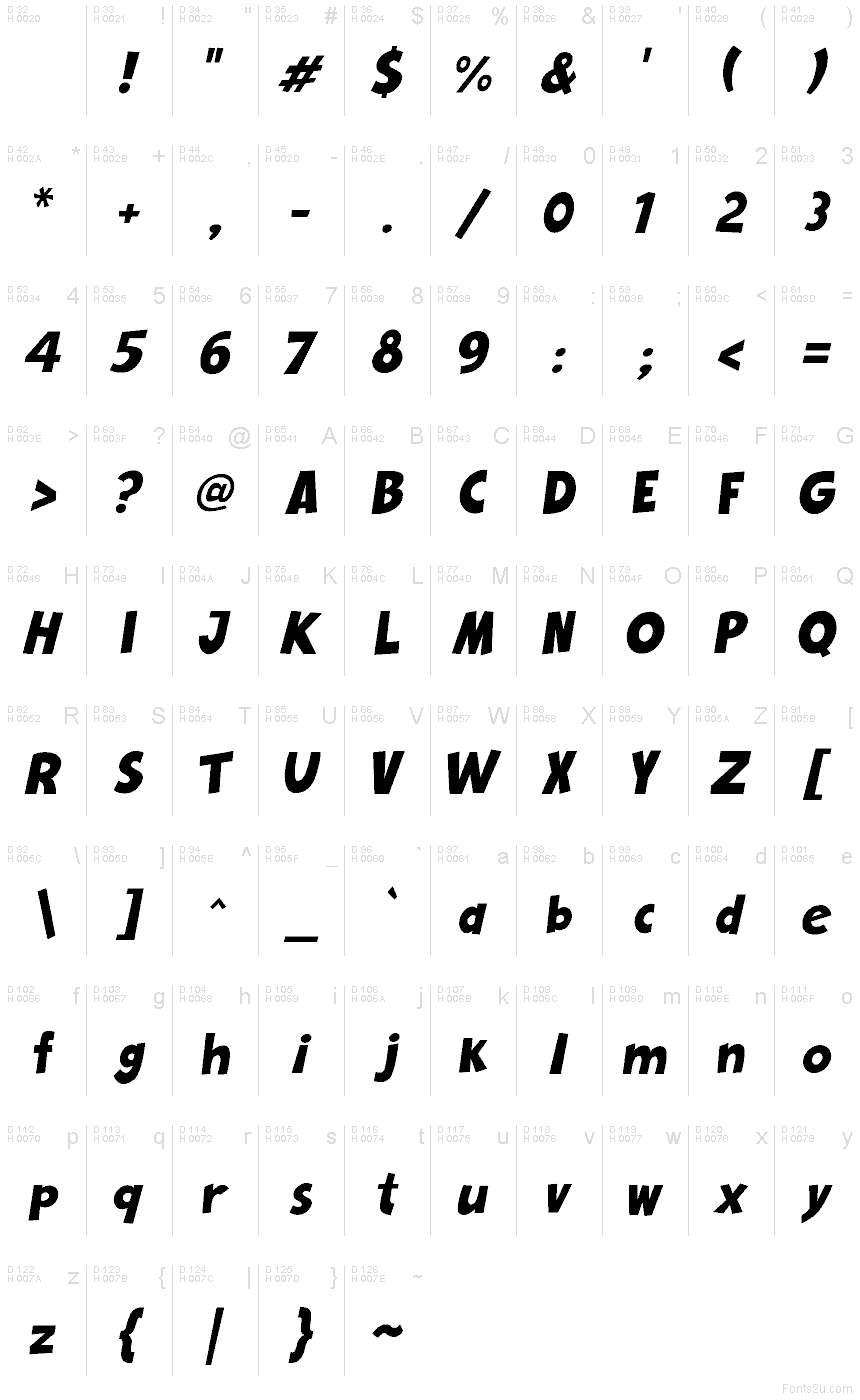
Cartoon 2 US Italic
Cartoon 2 US Italic font by Galdino Otten Fonts is a free display font with exaggerated outlines. The crossed thick and thin lines give the comic-stylized characters some distinction. It is best to limit the use of this font to combine it with appropriate complementing fonts as well.
The primary use cases include books, posters, game interfaces, magazines, branding design, advertisements, logos, merchandise design, video subtitles and intros and many others else.